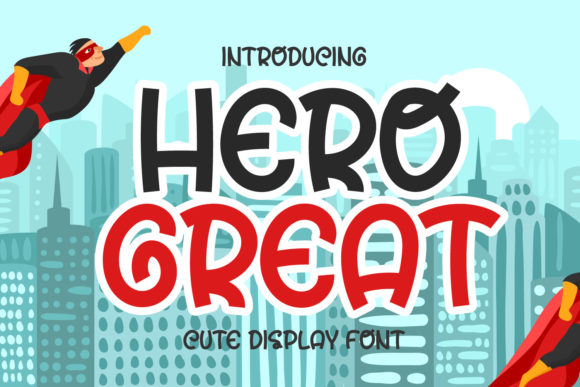
Introducing Hero Great Font: The Ultimate Choice for Fun and Cute Designs
In the world of typography, fonts play a crucial role in conveying the tone and personality of a design. When it comes to creating cartoon-related designs, children’s games, or any project that requires a touch of whimsy and fun, the right font can make all the difference. This is where Hero Great Font comes in – a delightful, simple, and cute display font that’s perfect for adding a lovely touch to your creations.
What is Hero Great Font?
Hero Great Font is a display font designed to bring a sense of fun and playfulness to your designs. Its cute and simple appearance makes it an excellent choice for projects that cater to a younger audience or require a lighthearted tone. The font’s friendly and approachable demeanor ensures that it can be used across various platforms, from digital media to print materials.
Key Features of Hero Great Font
- Fun and Playful Design: Hero Great Font boasts a unique design that’s both fun and engaging, making it perfect for cartoon-related projects and children’s games.
- Simple and Cute Appearance: The font’s simplicity and cuteness make it an excellent choice for designs that require a touch of innocence and naivety.
- Display Font: As a display font, Hero Great is designed to make a statement, making it perfect for headings, titles, and other prominent text elements.
- Versatile: The font’s versatility ensures that it can be used across various design projects, from digital media to print materials.
Use Cases for Hero Great Font
Hero Great Font is an excellent choice for a wide range of design projects, including:
- Cartoon-related designs: The font’s fun and playful design makes it perfect for cartoons, comics, and other cartoon-related projects.
- Children’s games: Hero Great Font is an excellent choice for children’s games, as its cute and simple appearance is sure to appeal to young players.
- Educational materials: The font’s friendly and approachable demeanor makes it an excellent choice for educational materials, such as textbooks, workbooks, and activity sheets.
- Digital media: Hero Great Font can be used in various digital media, including videos, animations, and social media graphics.
Benefits of Using Hero Great Font
Using Hero Great Font in your designs comes with several benefits, including:
- Unique and eye-catching designs: The font’s fun and playful design ensures that your projects stand out from the crowd.
- Emotional connection: Hero Great Font’s cute and simple appearance helps create an emotional connection with your audience, making your designs more relatable and engaging.
- Versatility: The font’s versatility ensures that it can be used across various design projects, saving you time and effort in the long run.
- Easy to read: Despite its playful design, Hero Great Font is easy to read, making it perfect for designs that require a clear and concise message.
- Keep it simple: Despite its playful design, Hero Great Font works best when used in a simple and clean design.
In conclusion, Hero Great Font is an excellent choice for designers looking to add a touch of fun and whimsy to their projects. Its cute and simple appearance, versatility, and ease of use make it perfect for a wide range of design projects, from cartoon-related designs to children’s games and educational materials. Whether you’re a seasoned designer or just starting out, Hero Great Font is sure to become a valuable addition to your font library.
- What is Hero Great Font? Hero Great Font is a fun, simple, and cute display font designed for cartoon-related designs, children’s games, and other projects that require a touch of whimsy and fun.